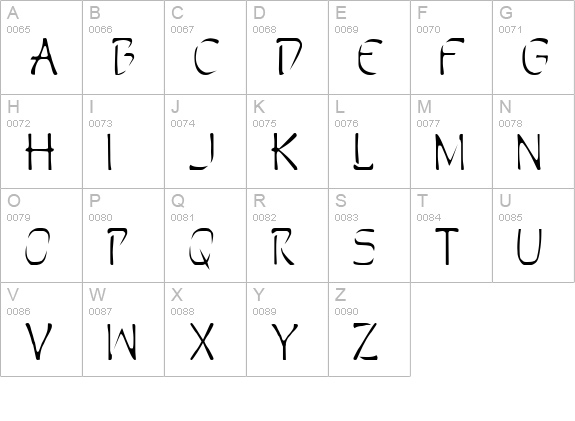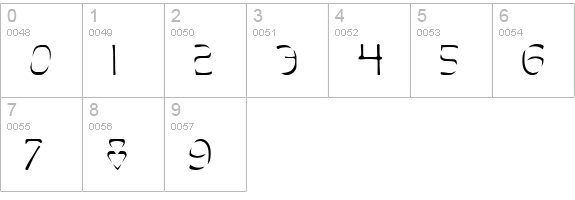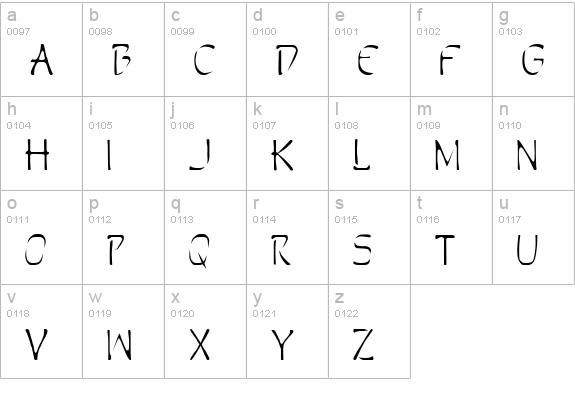
Perdition font is a captivating and versatile typeface that exudes a sense of mystery and intrigue. With its bold and edgy letterforms, this font is perfect for adding a touch of rebellion and excitement to any design project. Each letter of Perdition font is meticulously crafted to capture attention and evoke a sense of curiosity. From its sharp angles to its unique serifs, this font stands out from the crowd and leaves a lasting impression. What sets Perdition font apart is not only its visually stunning design but also the fact that it is free. Yes, you read that right! Perdition font is freely available to download at FontsMarket.com. This means that you can unleash your creativity without any financial constraints. Whether you're working on a poster, logo, or website, Perdition font offers endless possibilities. Its bold and distinctive style makes it ideal for headlines, while its legibility ensures that it can be easily read in smaller sizes. Download Perdition font today from FontsMarket.com and let your imagination run wild. With its free availability, you have the opportunity to elevate your designs without breaking the bank. Embrace the rebellious spirit of Perdition font and bring a fresh, captivating energy to your creative endeavors.